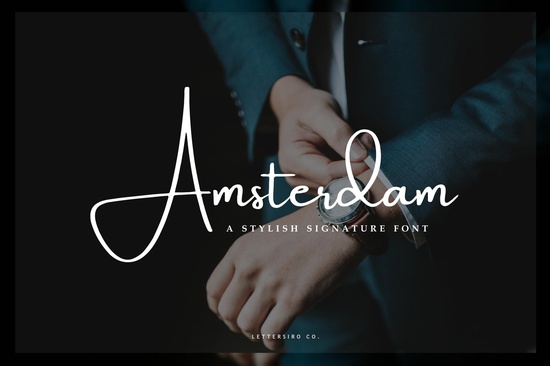
When it comes to adding a touch of elegance and personality to your designs, the Amsterdam Font is a fantastic choice. This stylish signature font is inspired by modern photography, making it perfect for creating stunning watermarks, business signatures, and other branding materials. Whether you're a designer, crafter, or a small business owner, this font can help you achieve a professional and unique look.
Why Choose Amsterdam Font?
The Amsterdam Font stands out with its clean, flowing lines and natural, handwritten feel. It's designed to be both elegant and versatile, making it suitable for a wide range of creative projects. Here are a few reasons why you might want to consider using this font:
- Versatility: Perfect for watermarks, business cards, logos, and more.
- Elegance: Adds a sophisticated touch to any design.
- Readability: Despite its stylish appearance, it remains easy to read.
Using Amsterdam Font for Watermarks
Watermarks are an essential part of protecting your work, especially if you're a photographer or graphic designer. The Amsterdam Font can help you create watermarks that are not just functional but also visually appealing. Here’s how you can use it effectively:
- Select the Right Size: Make sure the watermark is large enough to be visible but not so large that it distracts from the main image.
- Choose the Right Color: Use a color that complements the image but is still noticeable. Lighter colors work well on darker backgrounds, and vice versa.
- Position Wisely: Place the watermark in a corner or along the edge of the image to avoid covering important details.
Amsterdam Font for Business Signatures
A professional and personal signature can make a big difference in how your brand is perceived. The Amsterdam Font is ideal for creating a signature that looks both polished and authentic. Here’s how you can use it for your business:
- Email Signatures: Add a personal touch to your email correspondence with a custom signature.
- Business Cards: Incorporate the font into your business card design for a memorable and professional look.
- Letters and Documents: Use it for formal letters and documents to add a touch of sophistication.
Other Creative Uses for Amsterdam Font
Beyond watermarks and signatures, the Amsterdam Font can be used in a variety of creative ways. Here are a few more ideas:
- Invitations and Greeting Cards: Perfect for adding a personal touch to special occasions.
- Website Headers: Use it to create eye-catching headers for your website or blog.
- Social Media Graphics: Enhance your social media posts with stylish and readable text.
Complementary Fonts to Consider
To create a cohesive and well-rounded design, you might want to pair the Amsterdam Font with other complementary fonts. Here are a few options you can explore:
- Happy Saturday Font: A fun and playful script font that pairs well with the elegance of Amsterdam.
- Norelia Daily Font: A clean and modern script font that adds a contemporary feel.
- Arkina Duo Font: A versatile duo font that includes both script and sans-serif styles.
- Athaya Font: A beautiful and elegant script font that complements the refined look of Amsterdam.
- Rainbow Candy Font: A colorful and whimsical font that adds a playful touch to your designs.
Practical Tips for Using Amsterdam Font
Here are a few practical tips to help you get the most out of the Amsterdam Font:
- Test Different Sizes: Experiment with different sizes to find the one that best suits your project.
- Play with Spacing: Adjust the letter and line spacing to enhance readability and visual appeal.
- Combine with Other Fonts: Mix and match with other fonts to create a balanced and interesting design.
- Use for Special Occasions: Consider using the font for special events or limited-time offers to add a unique touch.
By incorporating the Amsterdam Font into your creative projects, you can add a touch of elegance and professionalism that sets your work apart. Whether you’re designing watermarks, business signatures, or other branding materials, this font is a great choice. Happy designing!